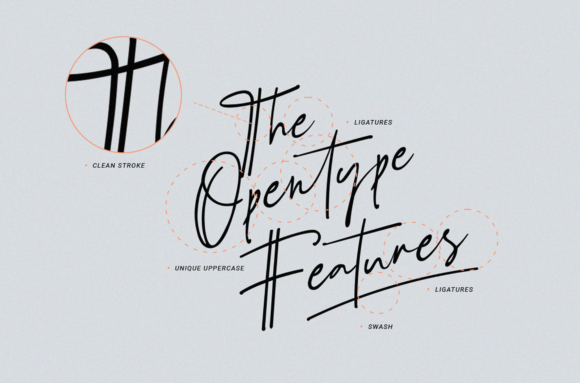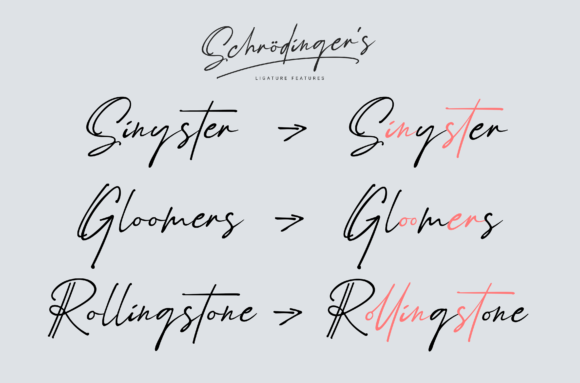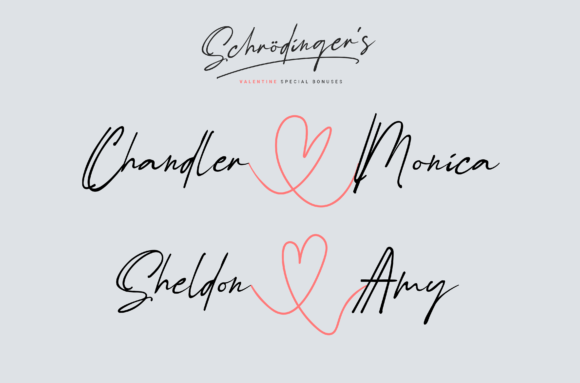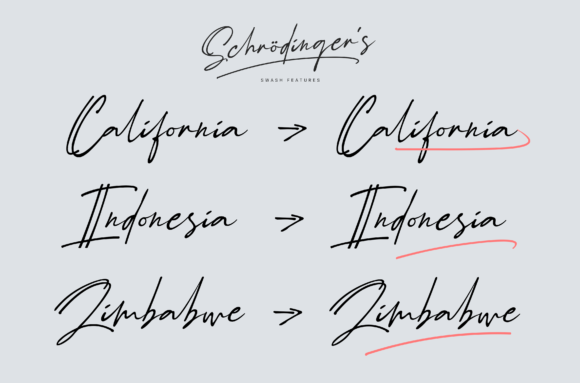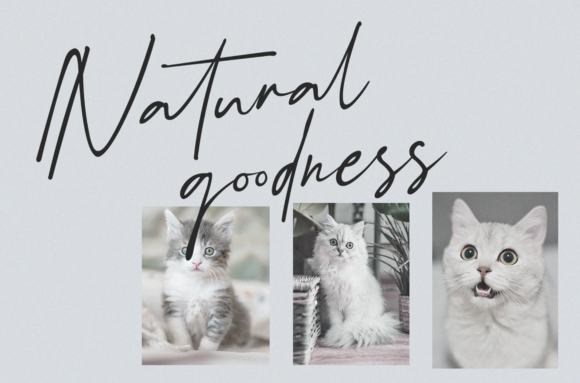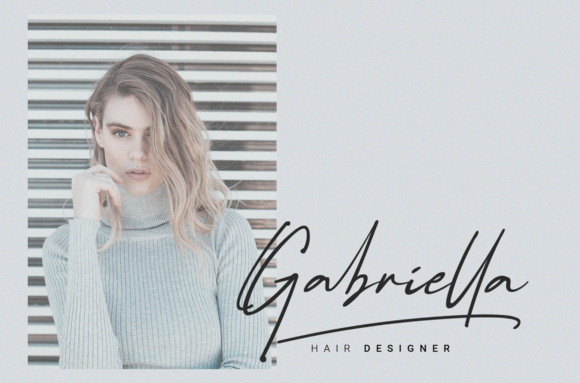
Introduction to Schrödinger’s Font
Schrödinger’s is a beautiful light handwritten font with a unique feel and a stunning impact.
Key Features of Schrödinger’s Font
Why Choose Schrödinger’s Font?
Schrödinger’s Font offers exceptional quality and versatility, making it a valuable addition to your design toolkit. Whether you’re creating for personal projects or commercial use, Schrödinger’s Font delivers professional results.